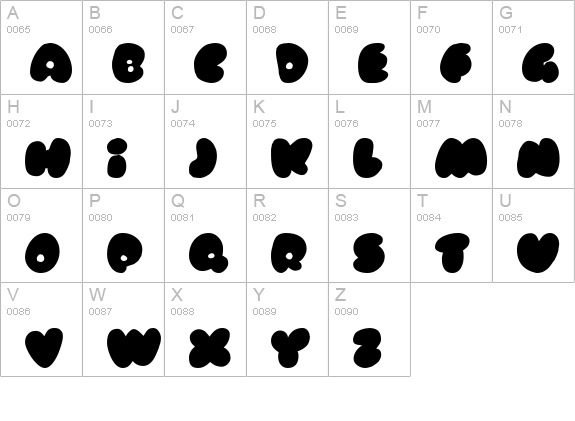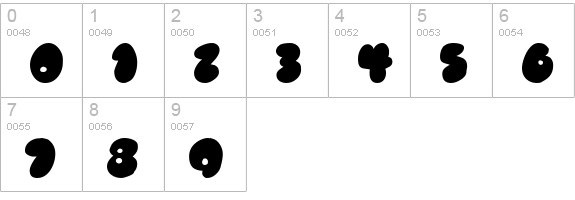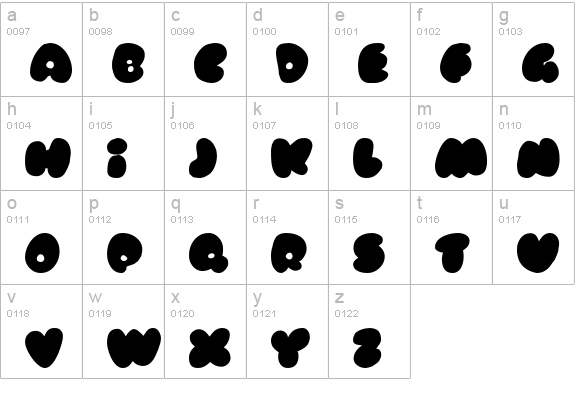
Rubberneck Font Details
Introducing Rubberneck font, a playful and eye-catching typeface that is sure to grab attention. With its quirky and unique design, Rubberneck font is perfect for adding a touch of fun and personality to your projects. Whether you're creating posters, logos, or social media graphics, this versatile font will make your text stand out. What's even better is that Rubberneck font is available for free download at FontsMarket.com. That's right, you can easily access this stylish font without any cost. So why wait? Elevate your designs with Rubberneck font today and make a lasting impression!